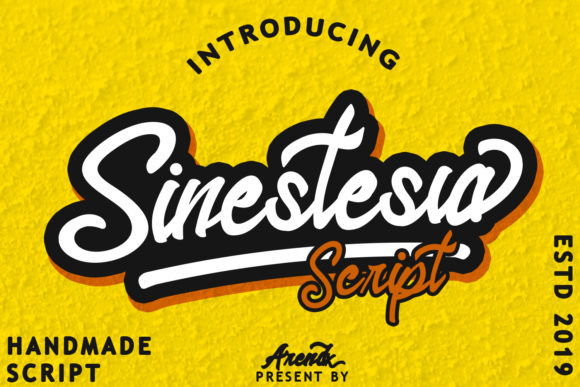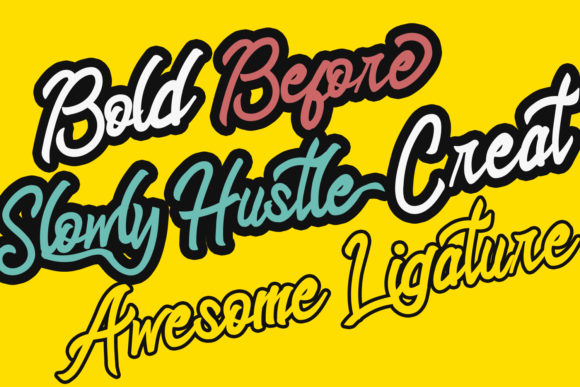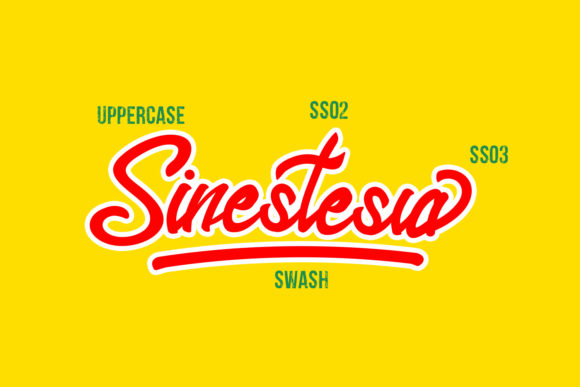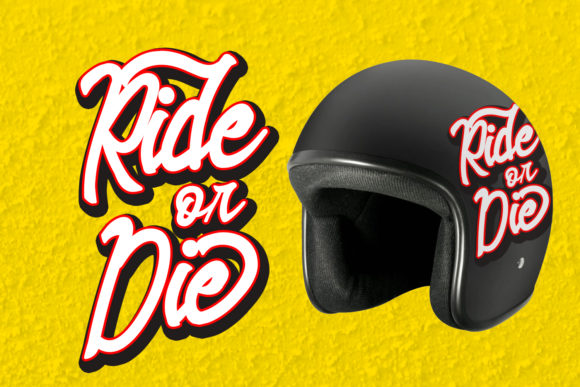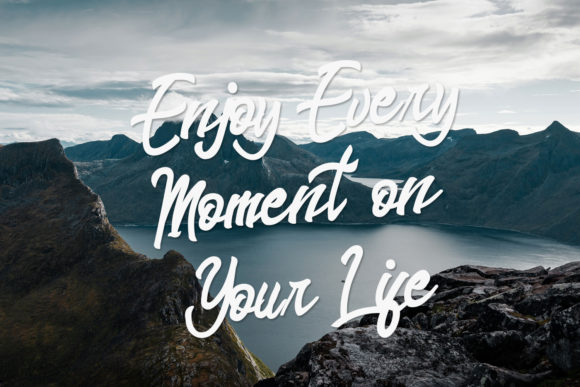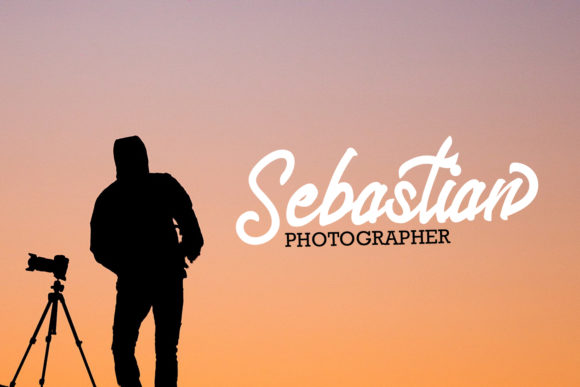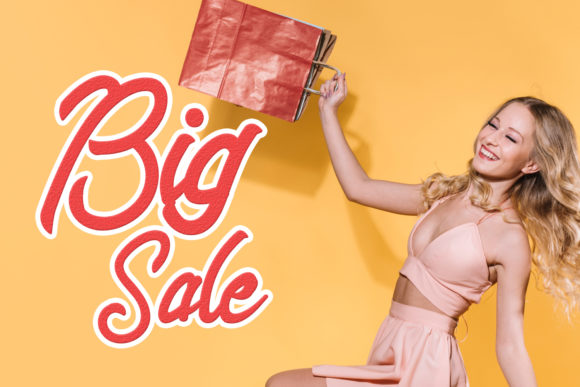
HomeScript FontsSinestesia Font Script Fonts Sinestesia Font FacebookXPinterestWhatsApp Sinestesia Font Poster 2 Sinestesia Font Poster 3 Sinestesia Font Poster 4 Sinestesia Font Poster 5 Sinestesia Font Poster 6 Sinestesia Font Poster 7 About Sinestesia Font Sinestesia is a cute and handwritten font with a bold twist. It will add a retro charm to any design project. DOWNLOAD NOW People also explored YWFT Pipe Canadien Monreal Font Wednesday Font Sofia Font The Owner Font Airlines Font Sunshine Wishes Font Hey Jinggo Font Duplex 343 0 TagsSinestesia Font Previous articleSweetness FontNext articleLovely Creature Font LEAVE A REPLY Cancel reply Comment: Please enter your comment! Name:* Please enter your name here Email:* You have entered an incorrect email address! Please enter your email address here Website: Save my name, email, and website in this browser for the next time I comment. Personal Use Free Nuku Nuku Personal Use Free Read more about this font Malinda Personal Use Free Read more about this font Archeology Personal Use Free Read more about this font Engebrechtre Personal Use Free Read more about this font BLOG Transform Your Website: Elevate Your Typography with 7 Best Web Font Generators Are you ready to transform your website's typography from ordinary to extraordinary? Great! Today, we're diving into the world of web font generators, which... Fonts That Capture the Spirit of New York City Elegant Wedding Invitation Fonts – Handwritten & Script Fonts How to Cut Any Font on Cricut: Convert a Font to SVG (Free)